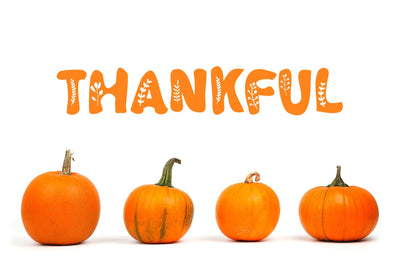
Branch - Farmhouse Font
Branch is natural organic plant typeface.
It contains brunch leaf illustrations that are embed into the font.
Also great for thanksgiving events.
Great for posters, logos, packaging, wedding invitations, website titles, T-Shirts and more.